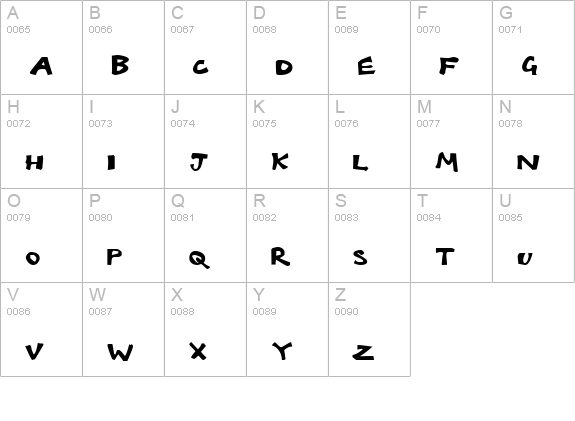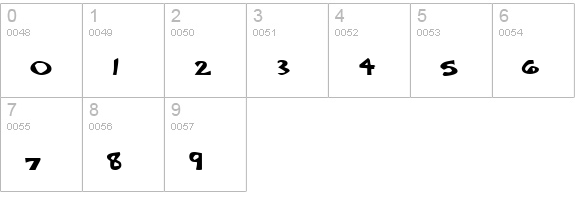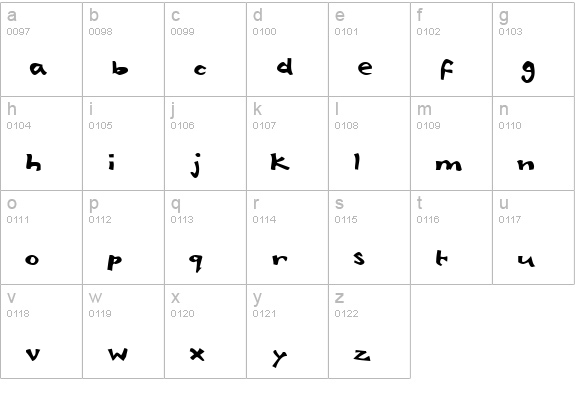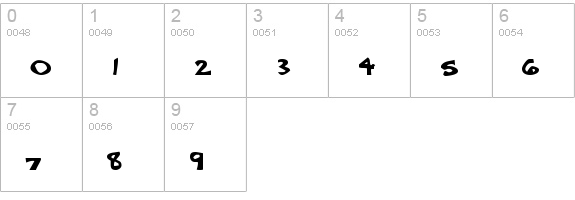
Babelfish Font Details
Introducing the extraordinary Babelfish font, a captivating typeface that effortlessly combines elegance, versatility, and creative flair. This remarkable font, with its intricate details and smooth curves, is a true testament to the artistry of typography. Babelfish font offers a wide range of stylistic options, making it suitable for various design projects. Whether you are designing a stunning logo, crafting eye-catching headlines, or creating visually stunning posters, this font will undoubtedly leave a lasting impression. One of the most remarkable aspects of Babelfish font is that it is freely available to download at FontsMarket.com. This means that you can bring your design visions to life without any financial constraints. The creators of this font believe in the power of creativity and accessibility, offering it as a gift to designers and enthusiasts alike. The versatility of Babelfish font truly knows no bounds. With its extensive character set, including multiple language support, you can effortlessly communicate your message to a global audience. Its smooth readability and impeccable legibility ensure that your words will be conveyed with utmost clarity and impact. In addition to its visual appeal, Babelfish font also boasts impeccable technical qualities. Its meticulous kerning and spacing ensure seamless integration into any design, while its OpenType features provide endless possibilities for customization and creativity. So, why settle for ordinary when you can elevate your design projects with the extraordinary Babelfish font? Download it freely at FontsMarket.com and unlock a world of possibilities. Let your creativity soar and make a lasting impression with this remarkable font.